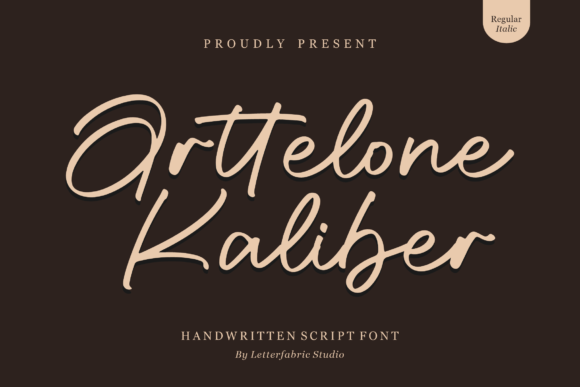
The Elusive Perfect Font: My Encounter with Arttelone Kaliber
I still remember the countless hours I spent searching for the perfect font for a wedding invitation project. My client wanted something elegant, feminine, and sophisticated, but I was coming up blank. That’s when I stumbled upon Arttelone Kaliber, a script font that would change the game for me. In this article, I’ll share my experience with this beautiful font, its features, and how to make the most of it in your designs.
An Honest Review of Arttelone Kaliber
- ✨ Elegant and flowing lines that exude sophistication and femininity
- ✅ Delicate curves and swashes that add a touch of luxury to any design
- 💫 Perfect for branding, wedding invitations, and editorial design
- 🎨 Highly versatile and can be used for a variety of creative projects
While Arttelone Kaliber is an amazing font, there are a few things to keep in mind:
- ⚠️ Some users may find the font a bit challenging to read in large blocks of text
- 🤔 Limited use of bold weights, which may not be ideal for designs requiring strong emphasis
- Experiment with OpenType features, such as swashes and stylistic alternates, to add personality to your design
- Experiment with glyphs, such as ligatures and swashes, to add visual interest to your design
The Story Behind Arttelone Kaliber
Arttelone Kaliber was designed with the intention of creating a font that embodies elegance and sophistication. The designer aimed to craft a font that would be perfect for creative projects requiring a touch of luxury and refinement. With its delicate curves and swashes, Arttelone Kaliber is sure to make a statement in any design.
Q: What type of projects is Arttelone Kaliber best suited for?
A: Arttelone Kaliber is perfect for branding, wedding invitations, editorial design, and any project that requires a touch of elegance and sophistication.
Q: Is Arttelone Kaliber a difficult font to read?
A: While Arttelone Kaliber is a script font, it’s designed to be elegant and legible. However, it may not be the best choice for large blocks of text, as it can be a bit challenging to read.